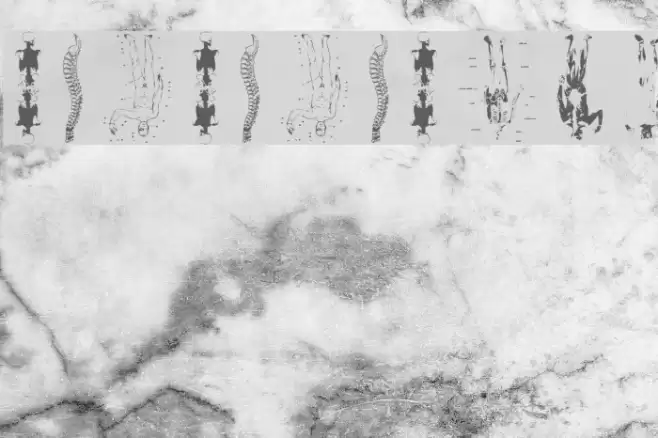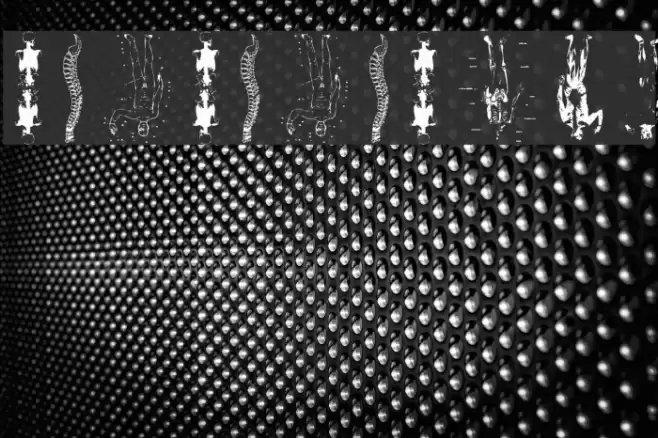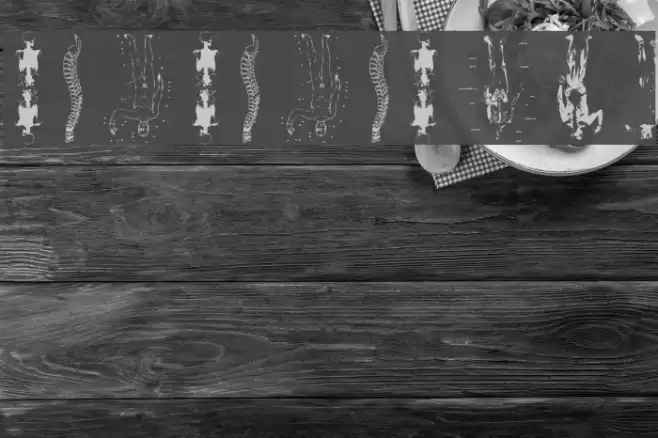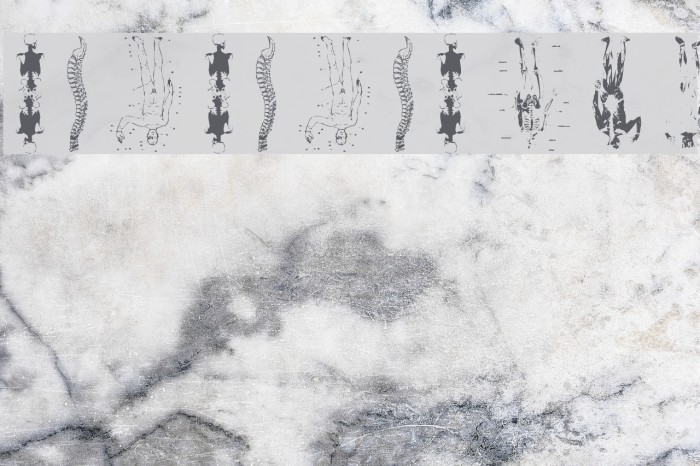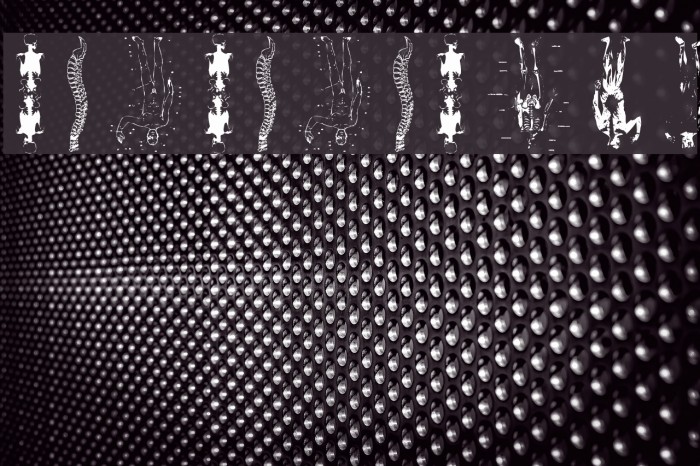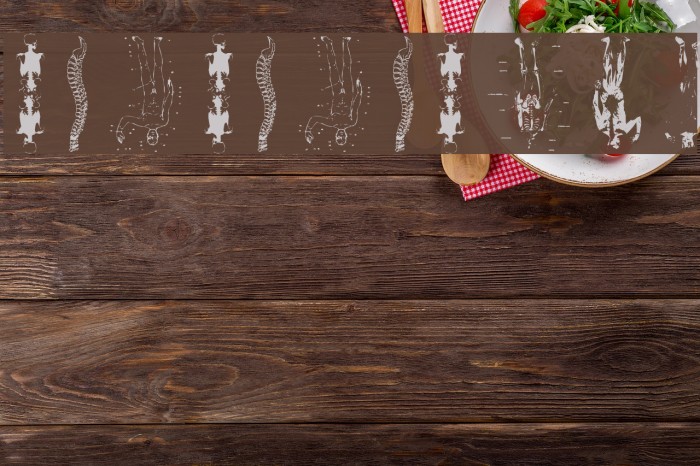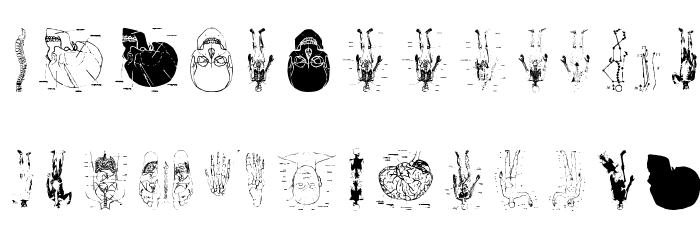
TaxTaxation Font
TaxTaxation Description
A highly decorative display font composed of anatomical and medical illustrations forming each character, with intricate linework and detailed imagery replacing traditional letterforms.
Anatomical illustration-based decorative display font from Dingbats fonts.
- Proposed Projects: Medical posters, science fiction book covers, educational materials, alternative album art, Halloween or horror-themed designs.
- Overall Style: Decorative, Scientific, Artistic
- Use Case: Logos, Headlines, Posters, Themed graphics